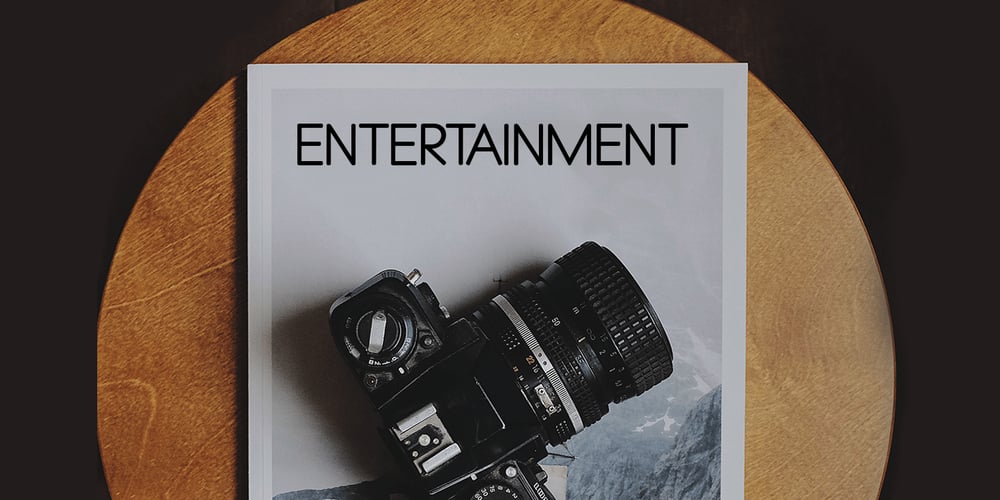
Qualio Font Family was designed by Marwah and published by BBA Key. Qualio contains 1 styles and family package options. Qualio is a new modern font. It is perfect for stationery, logos, t-shirts, paper, print designs, website headers, photo frames, leaflets, music covers, posters, image sliders and more.